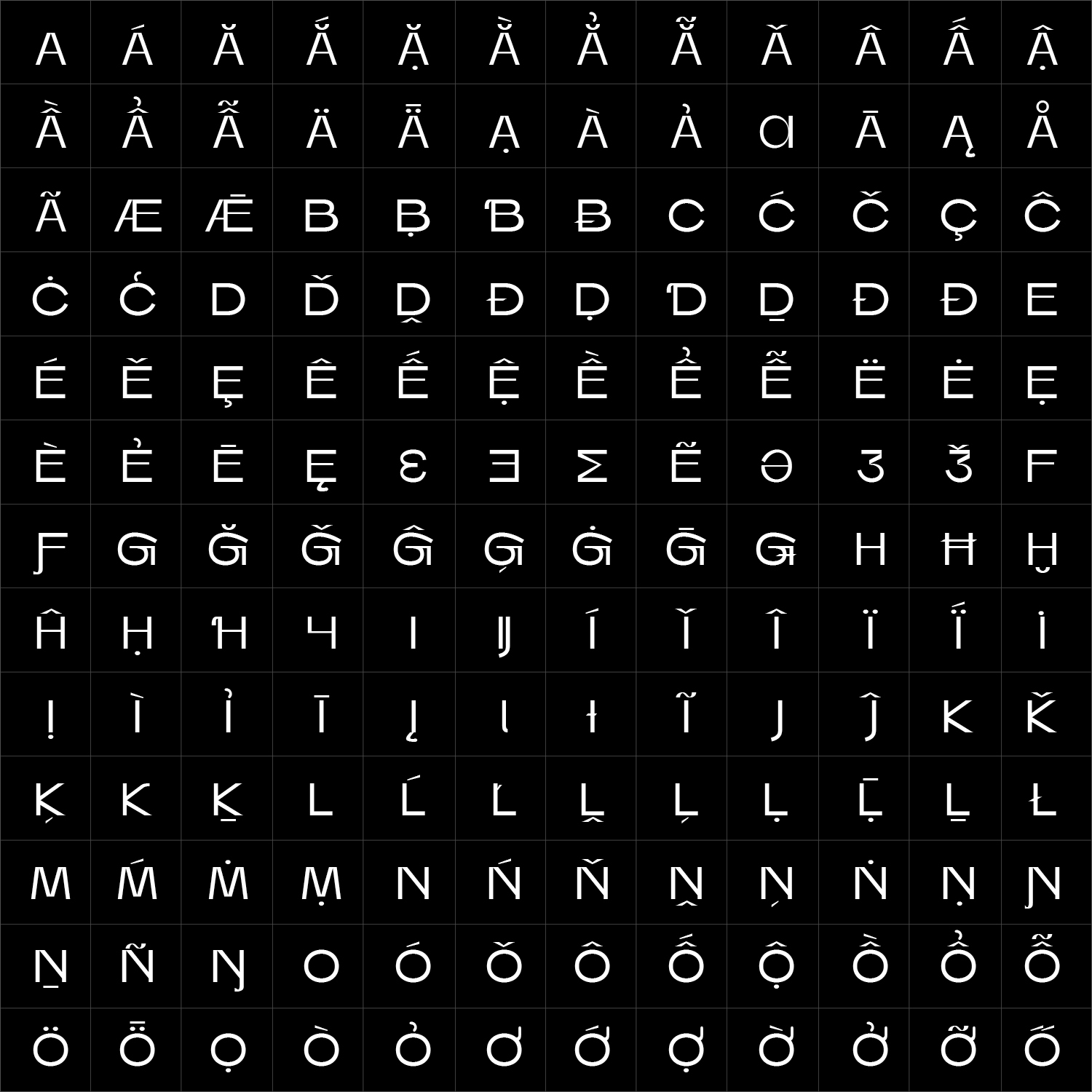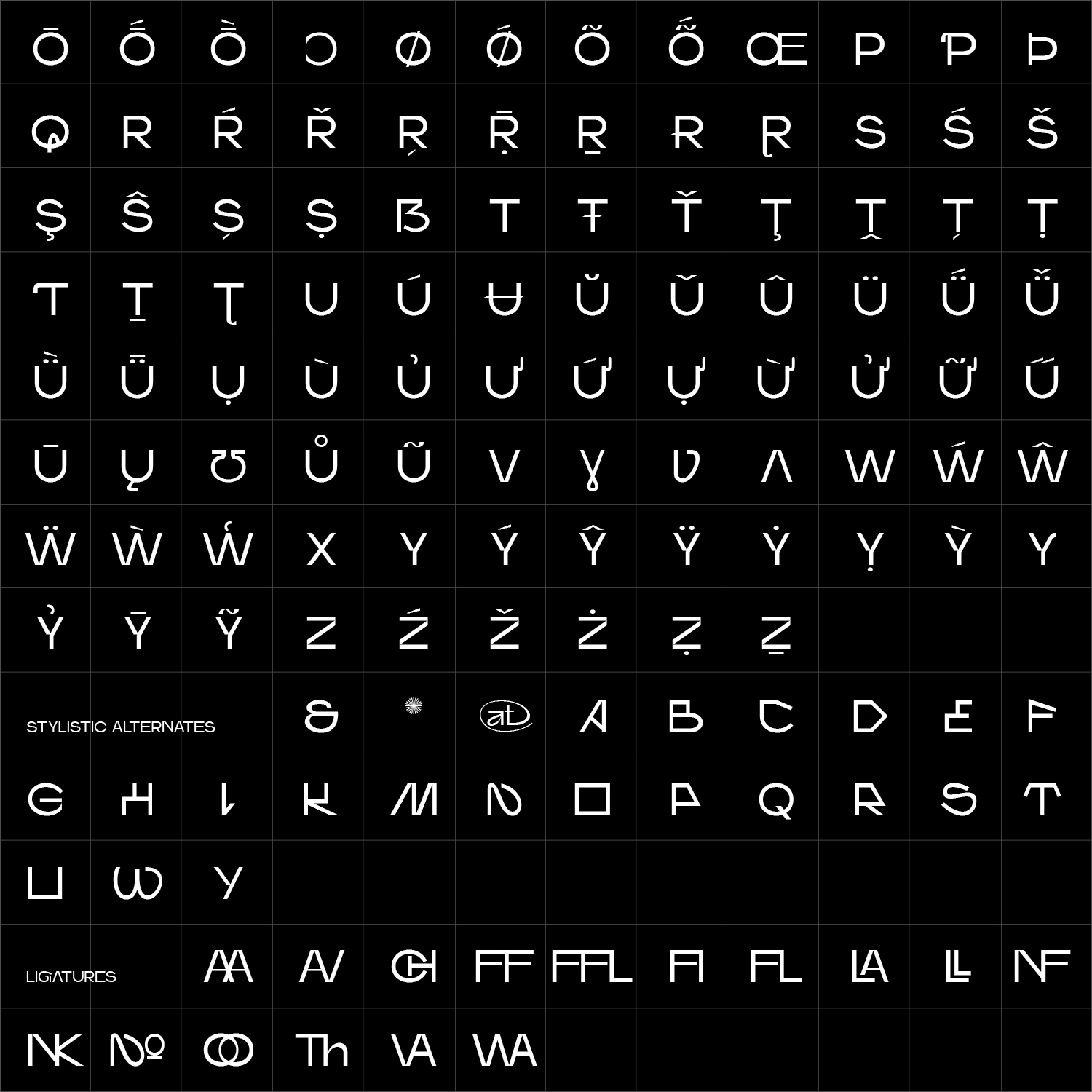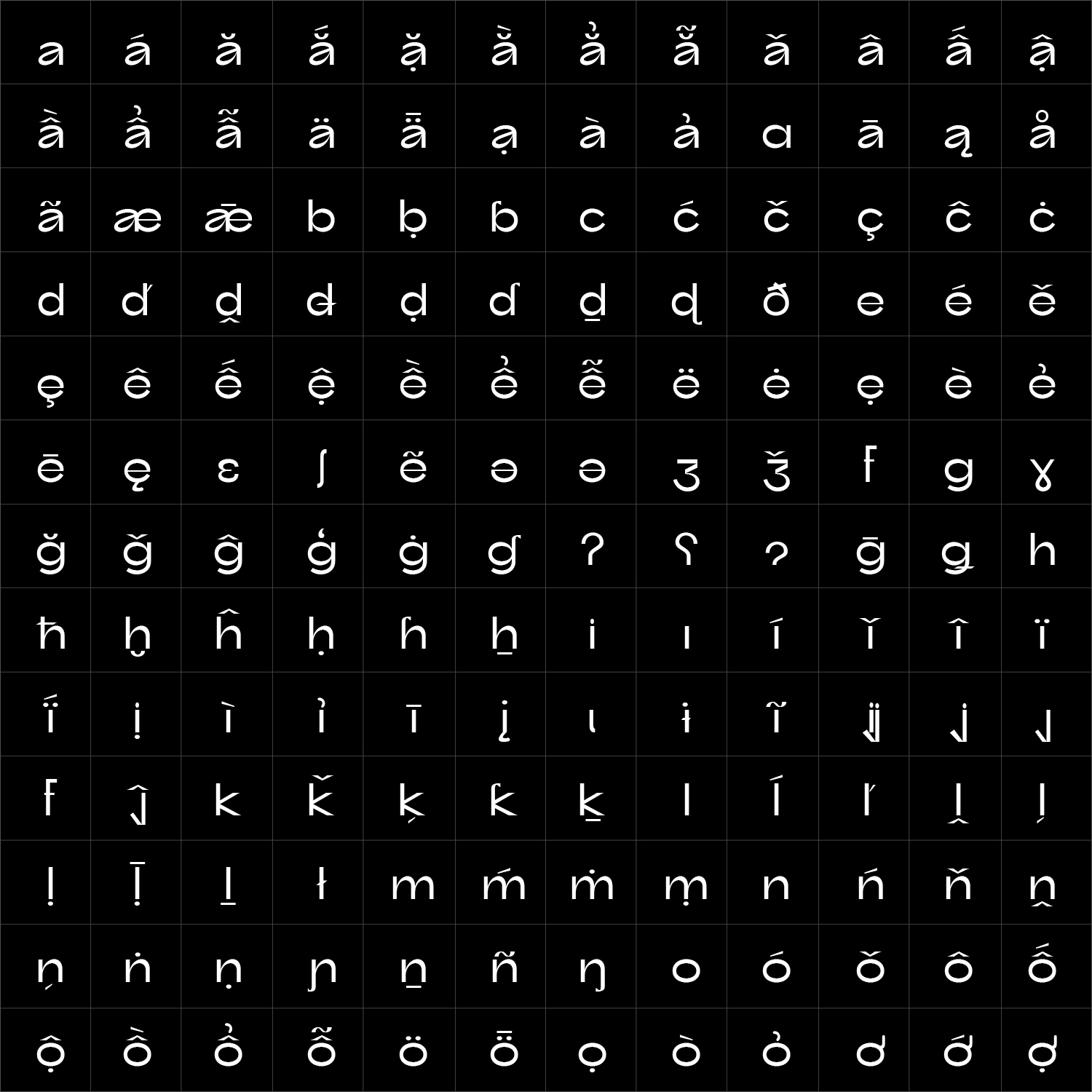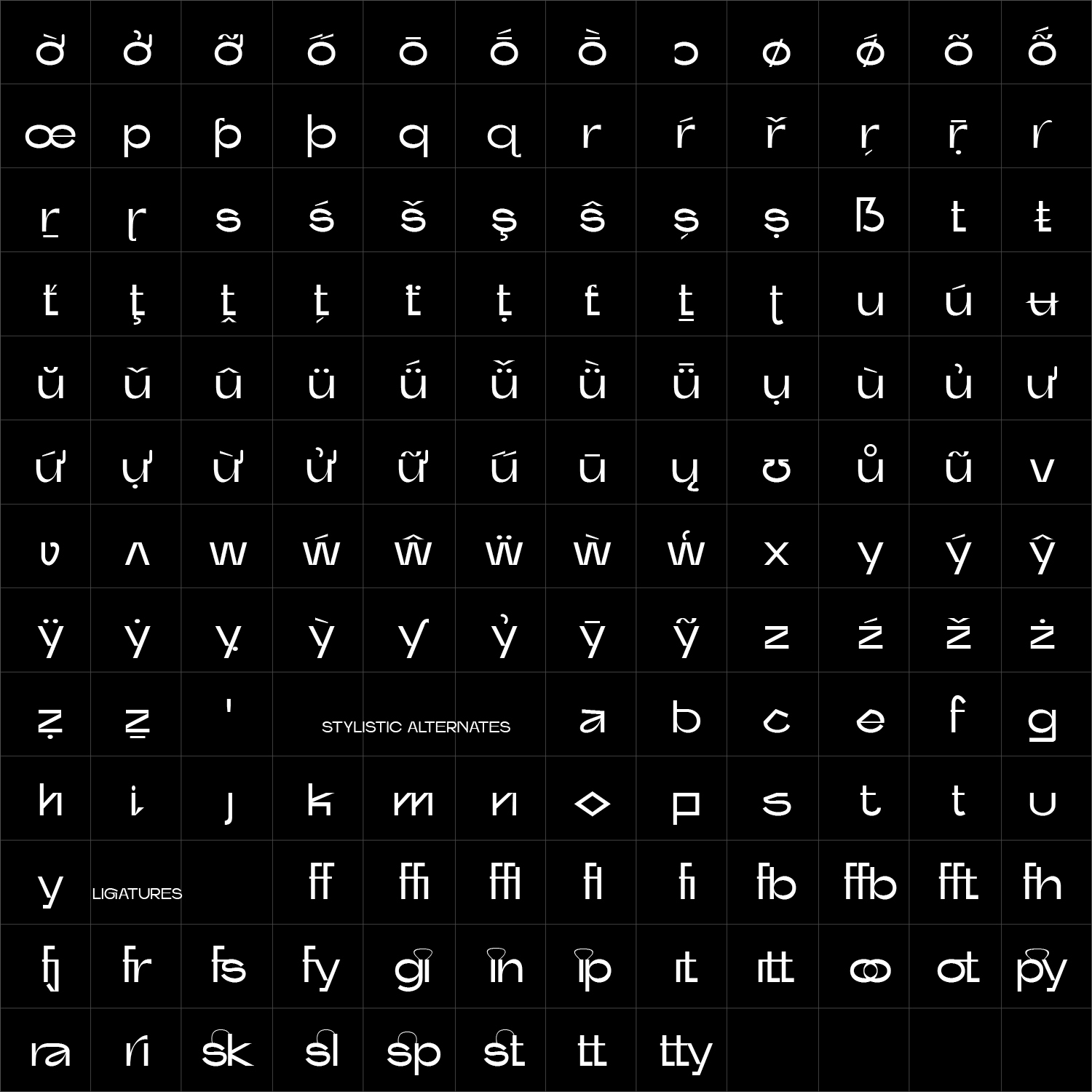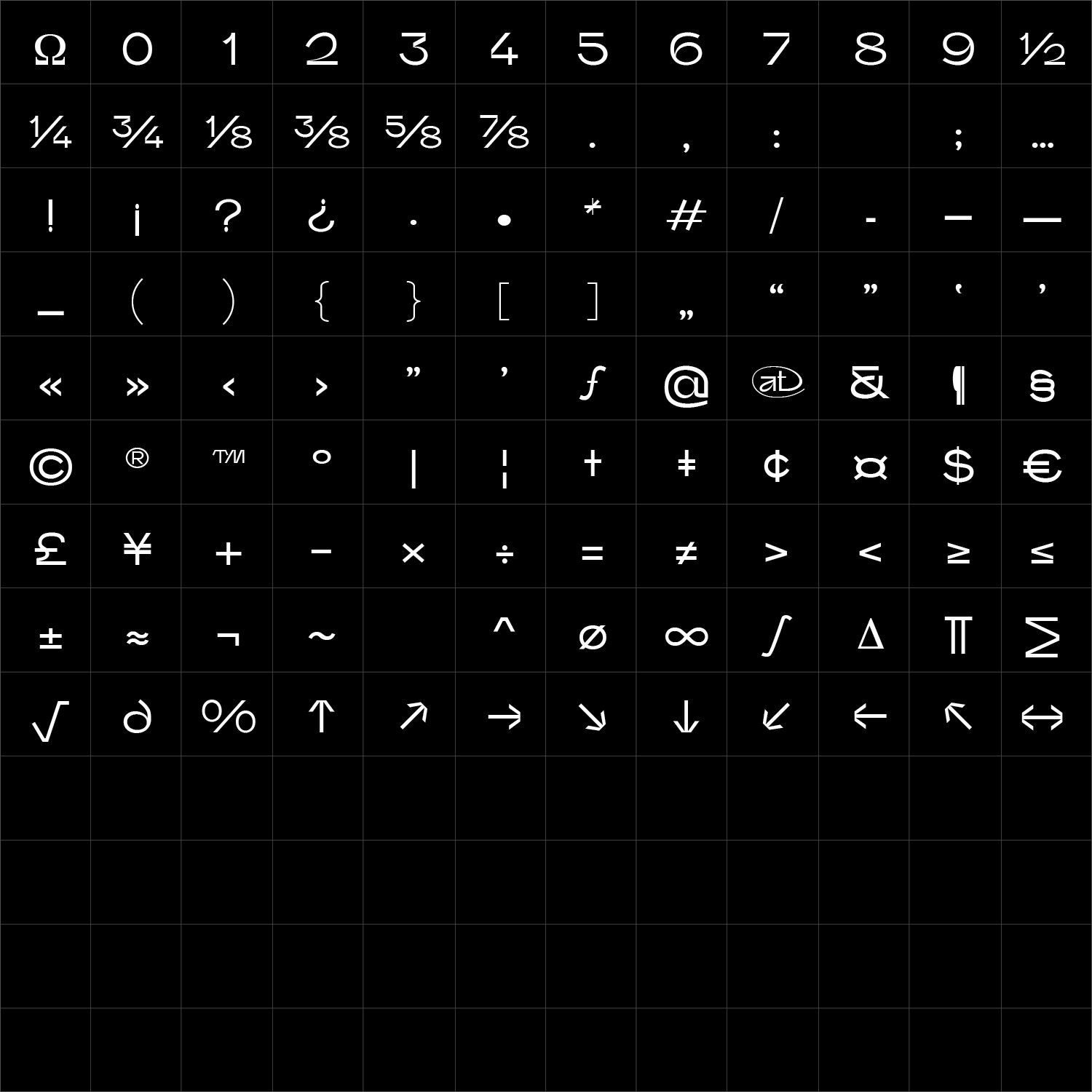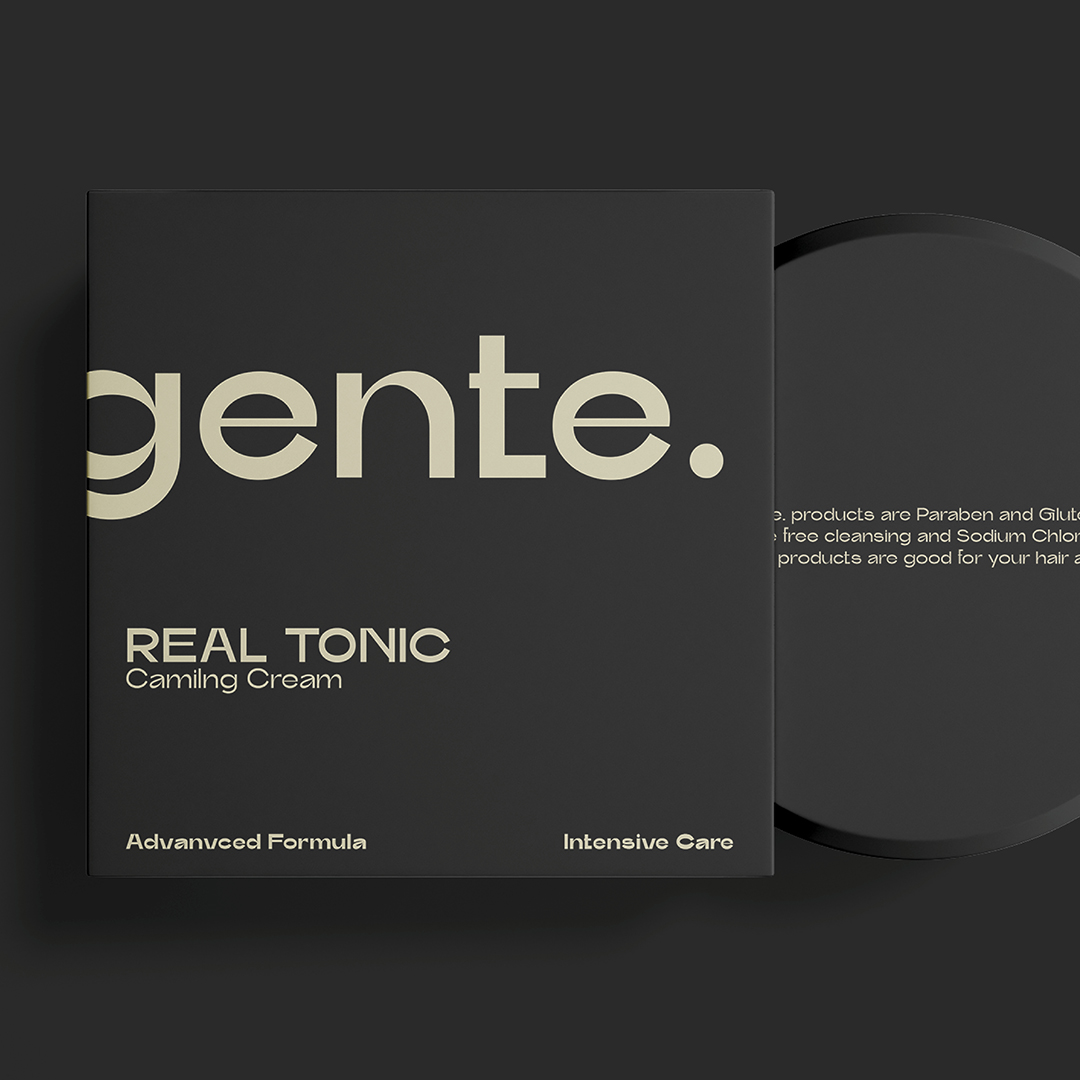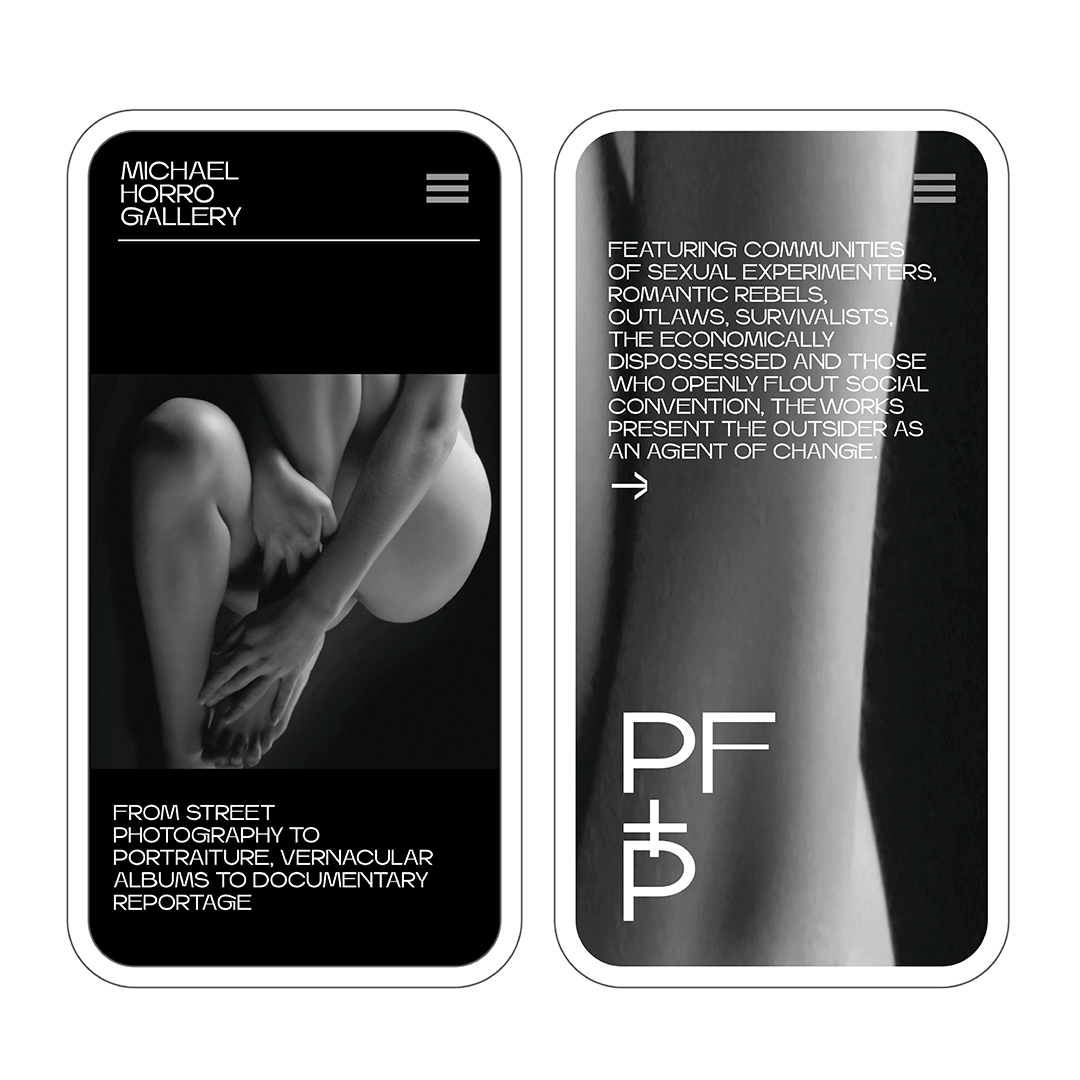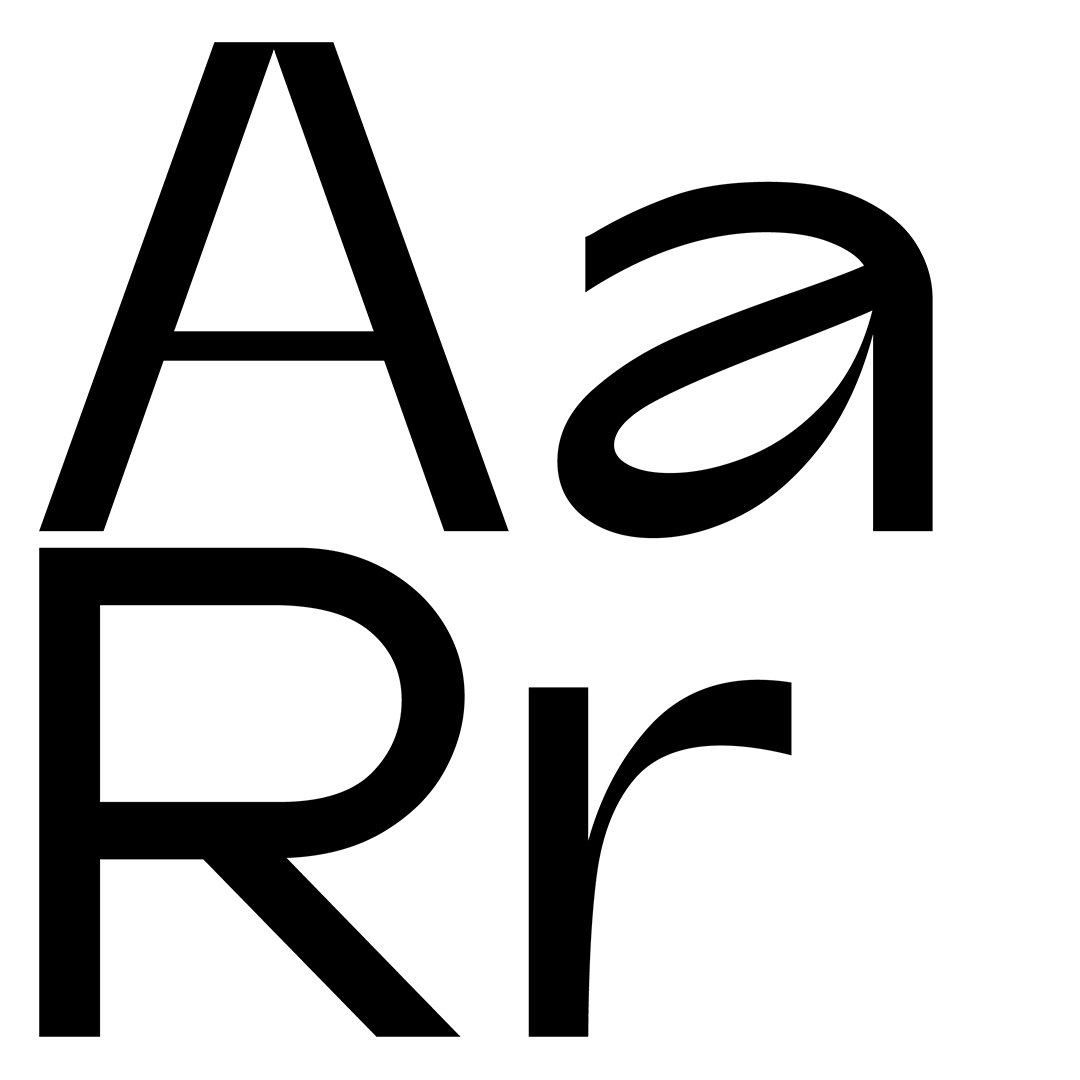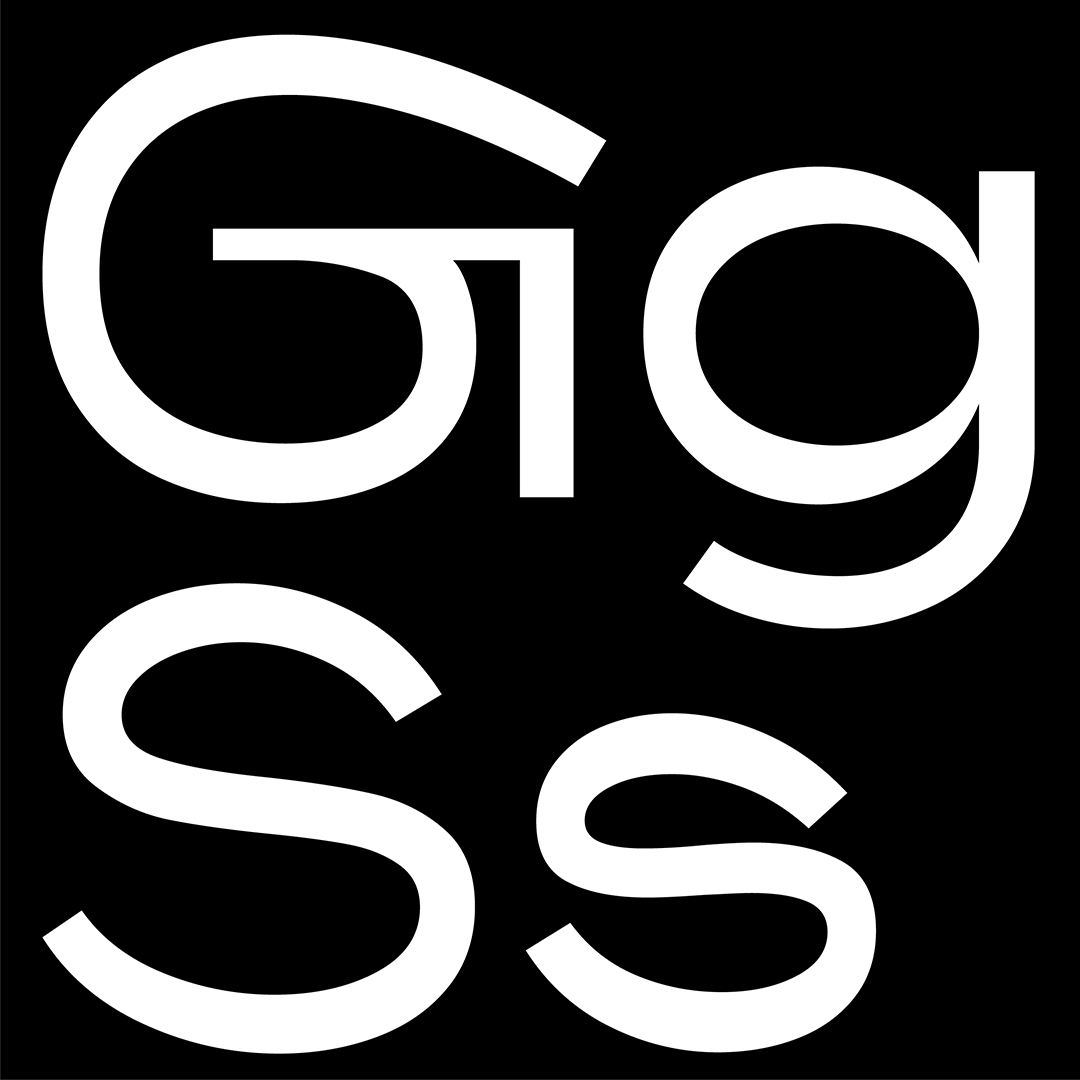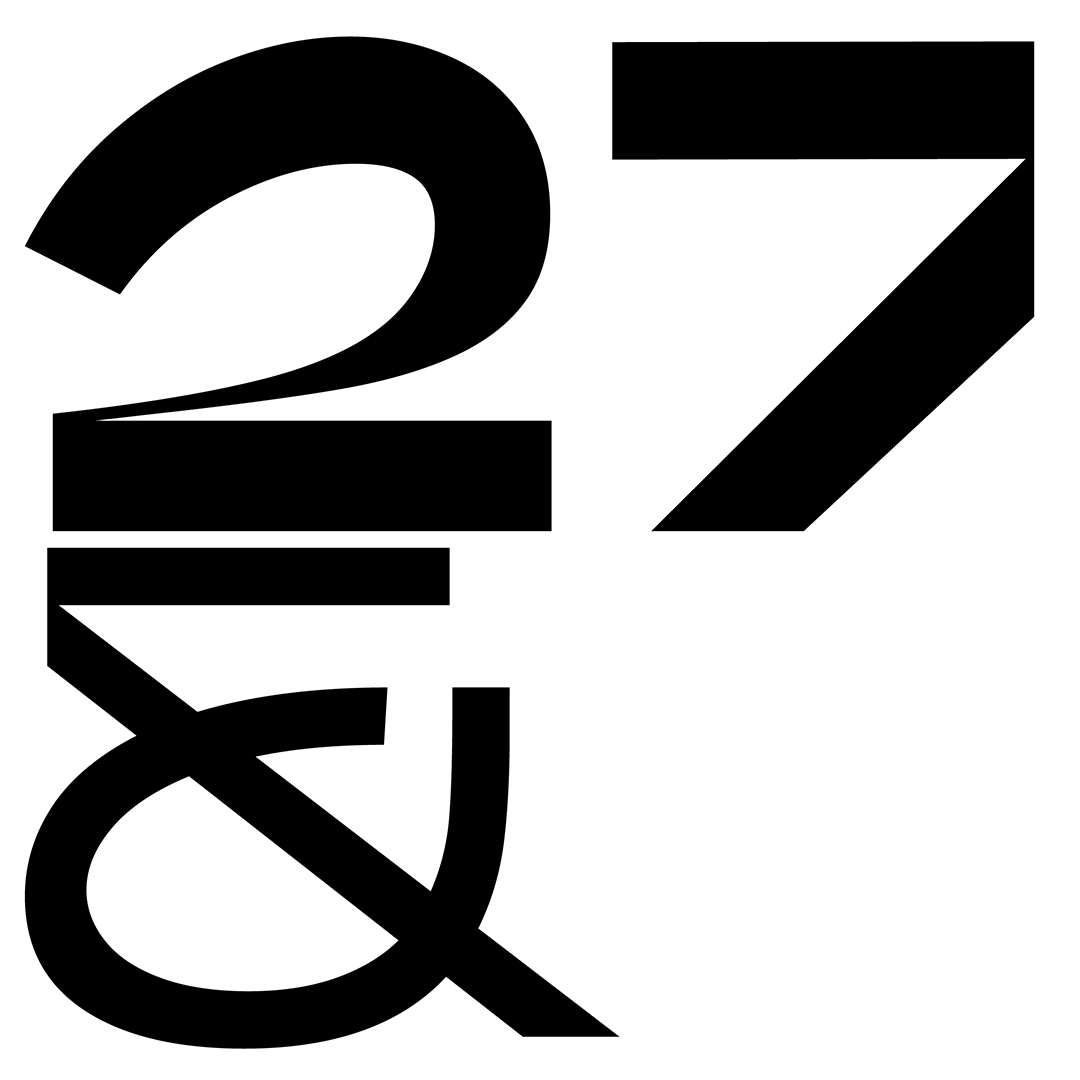
Faffin Display is an expressive typeface designed for large-scale typography and strong visual impact. Exaggerated proportions, sharp detailing and dramatic contrasts give the family an energetic and immediately recognisable voice.
Created for identities, posters, campaigns, editorial titles and digital communication, Faffin Display is designed to become a central visual element within the composition itself. Its broad weight range allows its personality to move from sharp and controlled to loud and emphatic.